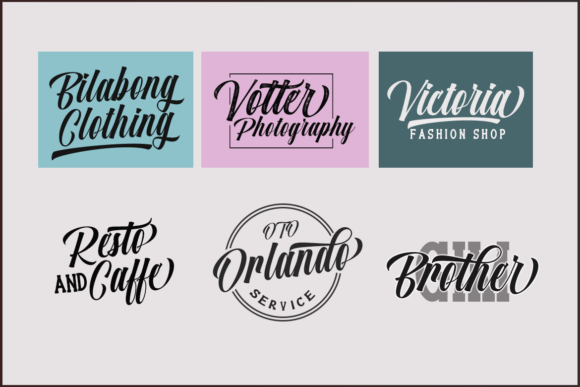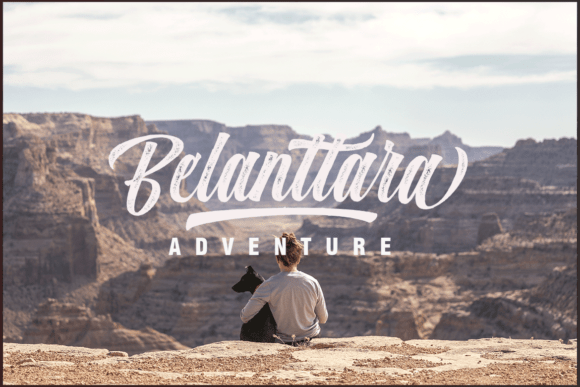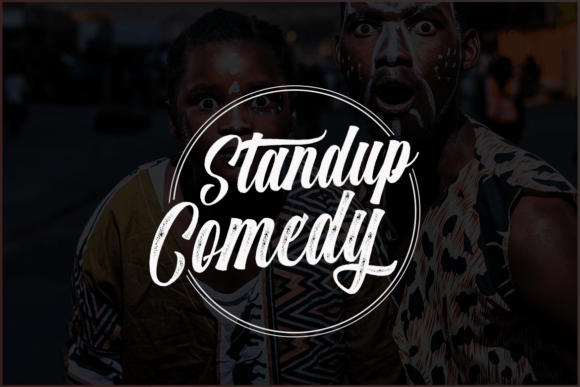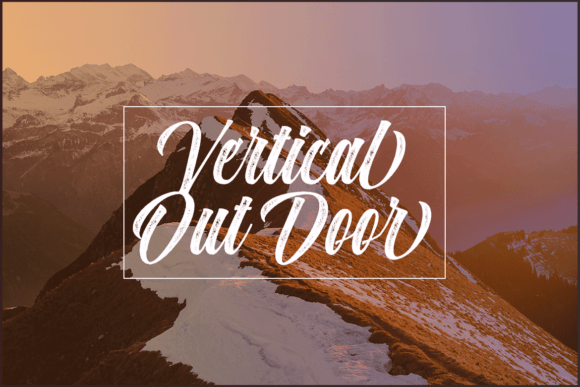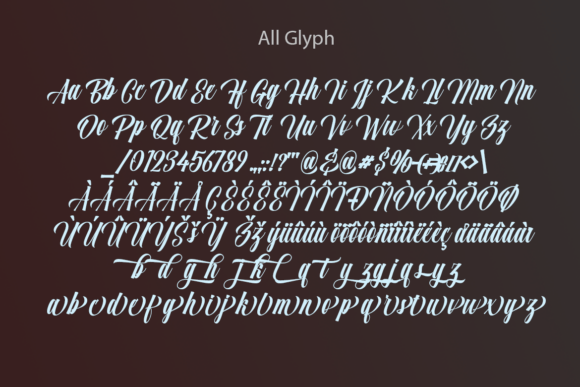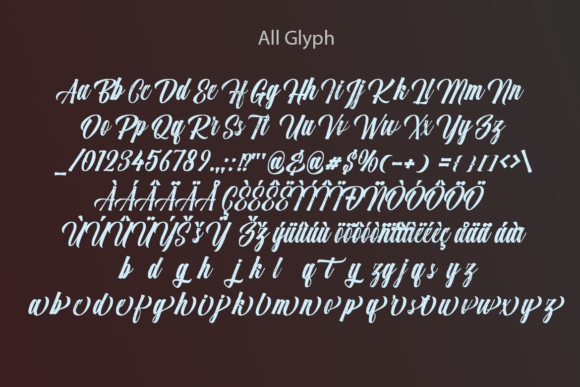
Discover the Elegance of Antara Font: A Delicate and Versatile Handwritten Font
Are you a designer or crafter looking for a font that exudes elegance and sophistication? Look no further than Antara Font, a beautiful handwritten font that is sure to capture your heart. With its delicate and versatile style, Antara Font is perfect for creating stunning designs that will leave a lasting impression.
What Makes Antara Font So Special?
Antara Font is a 3-style delicate and elegant handwritten font that boasts distinct and well-balanced letters, making it a true masterpiece. Its unique style is incredibly versatile, allowing you to use it for a wide range of design projects, from wedding invitations and branding materials to social media graphics and more.
One of the standout features of Antara Font is its ability to add a touch of elegance and sophistication to any design. Its delicate lines and curves create a sense of refinement and luxury, making it perfect for designers and crafters who want to create high-end designs that will impress their clients or audience.
The Benefits of Using Antara Font
So, why should you choose Antara Font for your design projects? Here are just a few benefits of using this beautiful font:
- Versatility: Antara Font is incredibly versatile, making it perfect for a wide range of design projects, from print materials to digital graphics.
- Elegance: Antara Font exudes elegance and sophistication, adding a touch of refinement to any design.
- Easy to Read: The letters in Antara Font are well-balanced and easy to read, making it perfect for body text and headlines.
- Unique Style: Antara Font has a unique style that will set your designs apart from the crowd.
How to Use Antara Font in Your Designs
Using Antara Font in your designs is easy. Here are a few tips to get you started:
- Pair it with Other Fonts: Antara Font pairs well with other fonts, making it easy to create stunning font combinations.
- Use it for Headlines and Body Text: Antara Font is perfect for both headlines and body text, making it a great choice for a wide range of design projects.
- Experiment with Colors: Antara Font looks great in a variety of colors, so don’t be afraid to experiment and find the perfect color for your design.
Who is Antara Font Perfect For?
Antara Font is perfect for designers and crafters who want to create elegant and sophisticated designs. Here are a few examples of who may benefit from using Antara Font:
- Graphic Designers: Antara Font is perfect for graphic designers who want to create stunning branding materials, such as logos, business cards, and brochures.
- Wedding Planners: Antara Font is a great choice for wedding planners who want to create beautiful wedding invitations, programs, and other stationery.
- Social Media Managers: Antara Font is perfect for social media managers who want to create engaging and stylish social media graphics.
In conclusion, Antara Font is a beautiful and versatile handwritten font that is perfect for designers and crafters who want to create elegant and sophisticated designs. With its delicate lines and curves, Antara Font is sure to capture your heart and add a touch of refinement to any design. So why wait? Fall in love with Antara Font and start creating spectacular designs today!